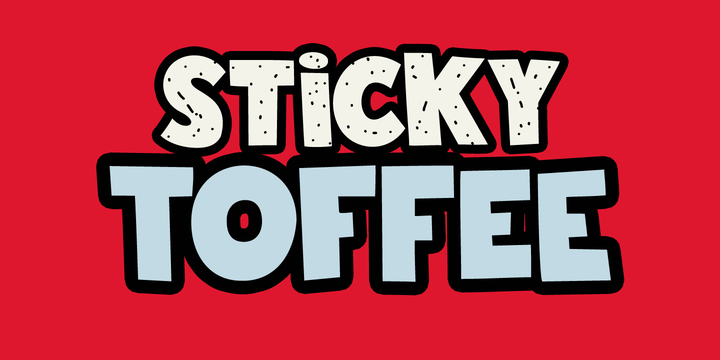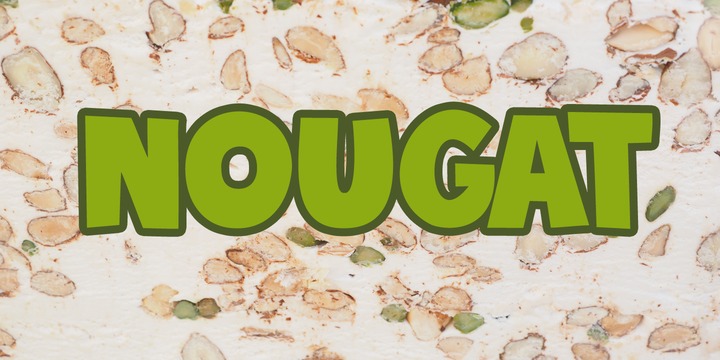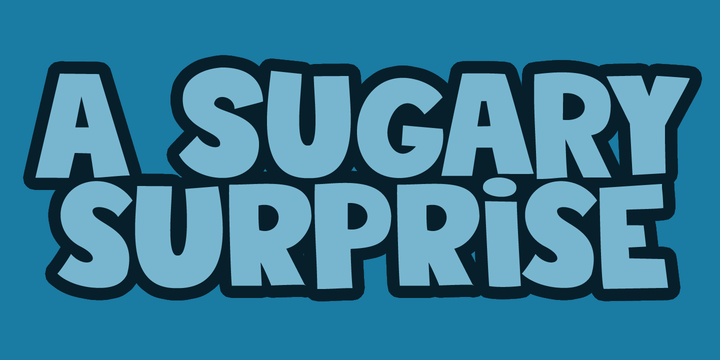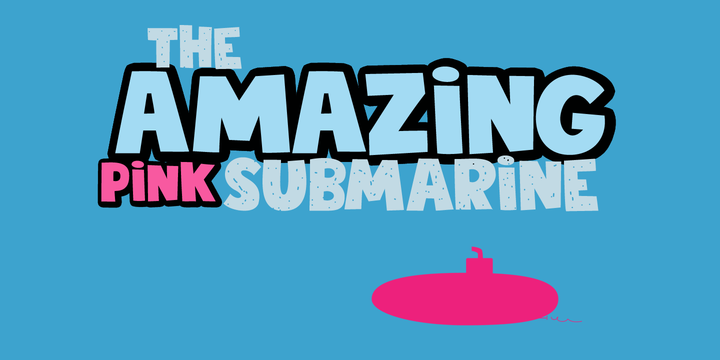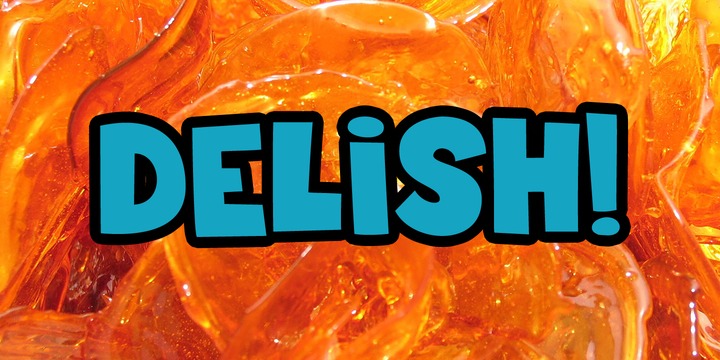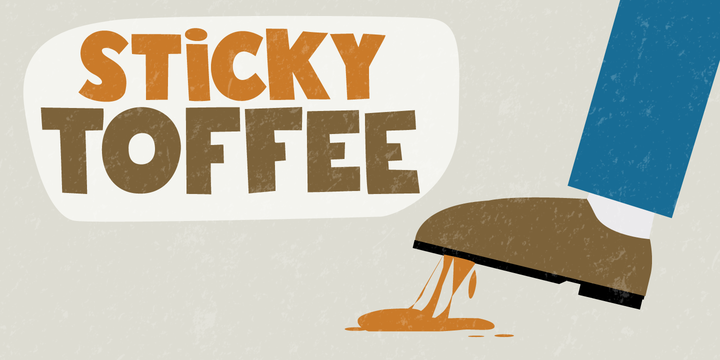
Sticky Toffee Font Family – 2 Fonts
I don’t have a sweet tooth myself, but I do like toffee! One of my favourite desserts is English Sticky Toffee Pudding, so I really had to name a font after this delicacy. Sticky Toffee is a bold display font. It’s all caps (in case you might have missed that), but upper and lower case differ and can be used together to create a more ‘natural’ look.
Sticky Toffee comes in two great styles: Regular and Sprinkles, and has all the diacritics you’ll need.